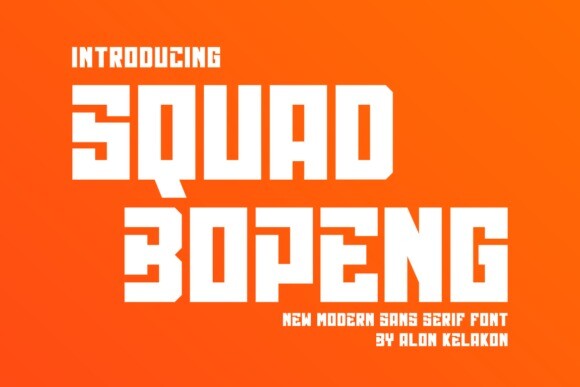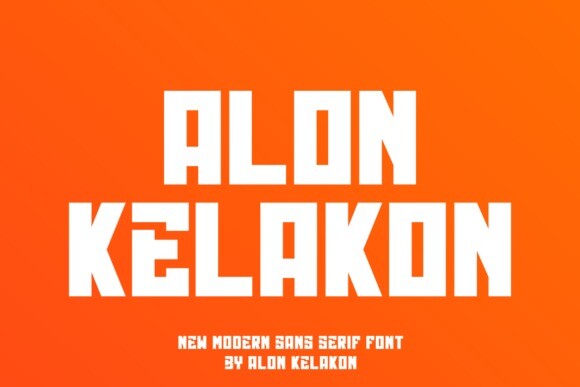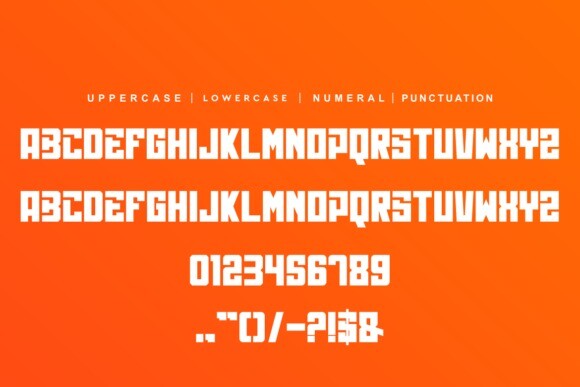
Squad Bopeng Font
Squad Bopeng is a cool and fun display font. No matter the topic, this font will be an incredible asset to your fonts’ library, as it has the potential to elevate any creation.